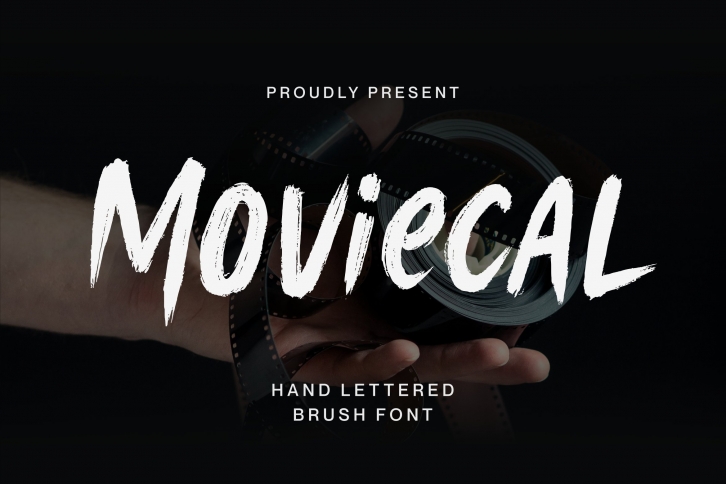
Proudly Presenting, Moviecal a Handlettered Brush Font.
Moviecal is perfect for any titles, logo, product packaging, branding project, megazine, social media, wedding, or just used to express words above the background.
Moviecal also come with Multi-Lingual Support.